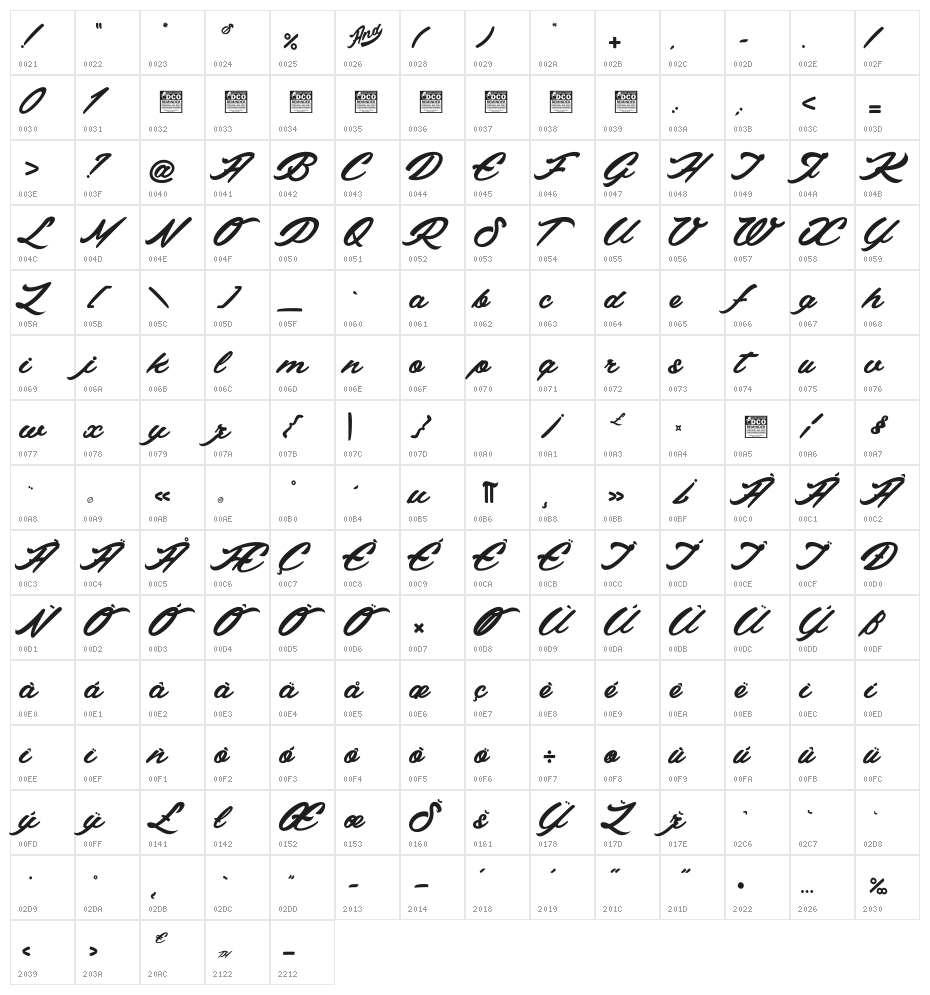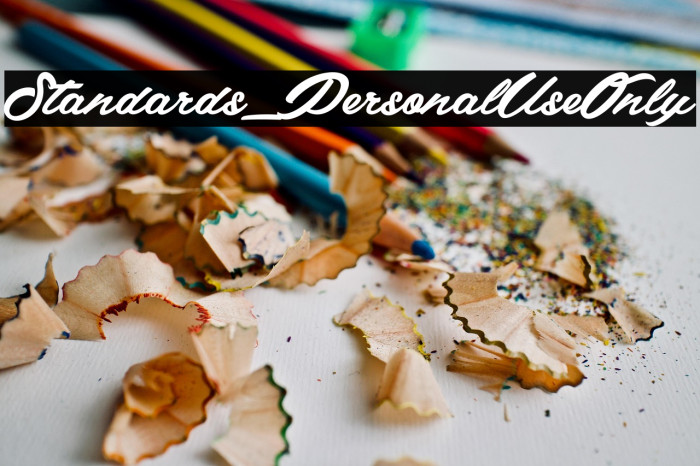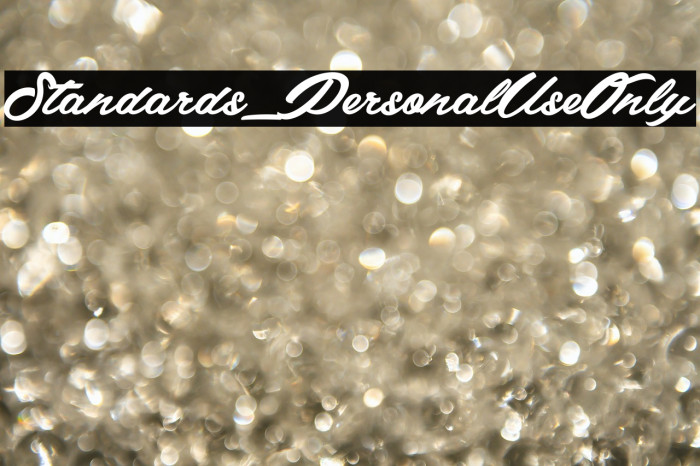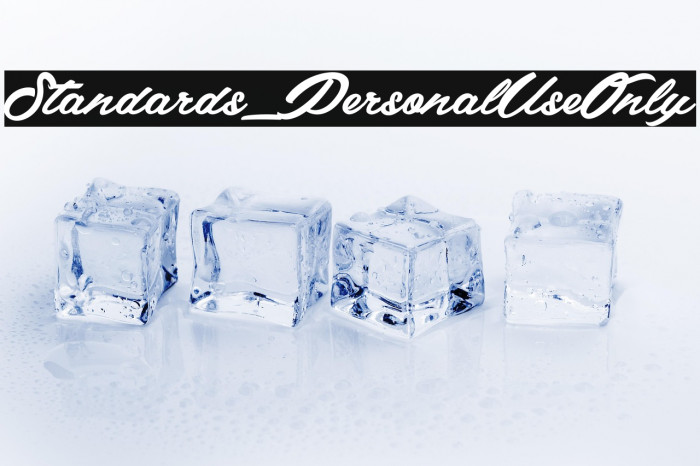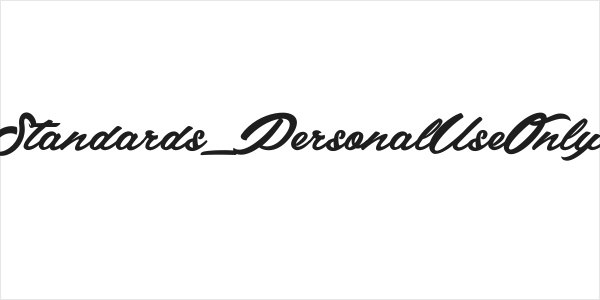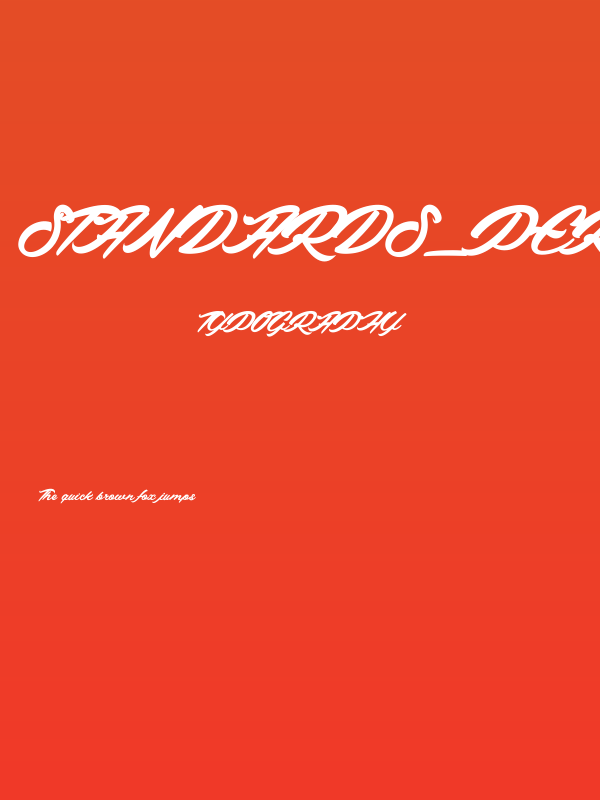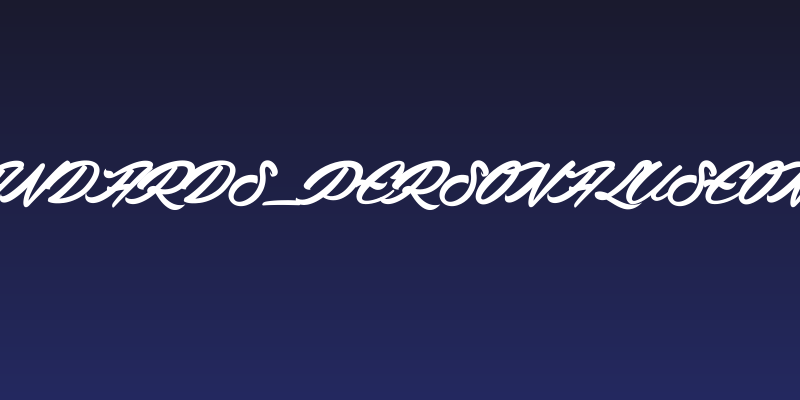
Standards_PersonalUseOnly Font
Standards_PersonalUseOnly Description
This font features a flowing, cursive style with elegant, sweeping strokes that give it a handwritten appearance. The letters are connected, creating a seamless and fluid look that is both sophisticated and artistic. The uppercase letters are bold and prominent, while the lowercase letters maintain a consistent style with slightly less emphasis. The numbers and special characters are designed to match the overall aesthetic, ensuring a cohesive appearance across all text. This font's script style is ideal for projects that require a personal touch or a sense of elegance.
| Overall Style | Elegant, Artistic |
| Proposed Projects | Ideal for wedding invitations, greeting cards, personal branding, and elegant logo designs. |